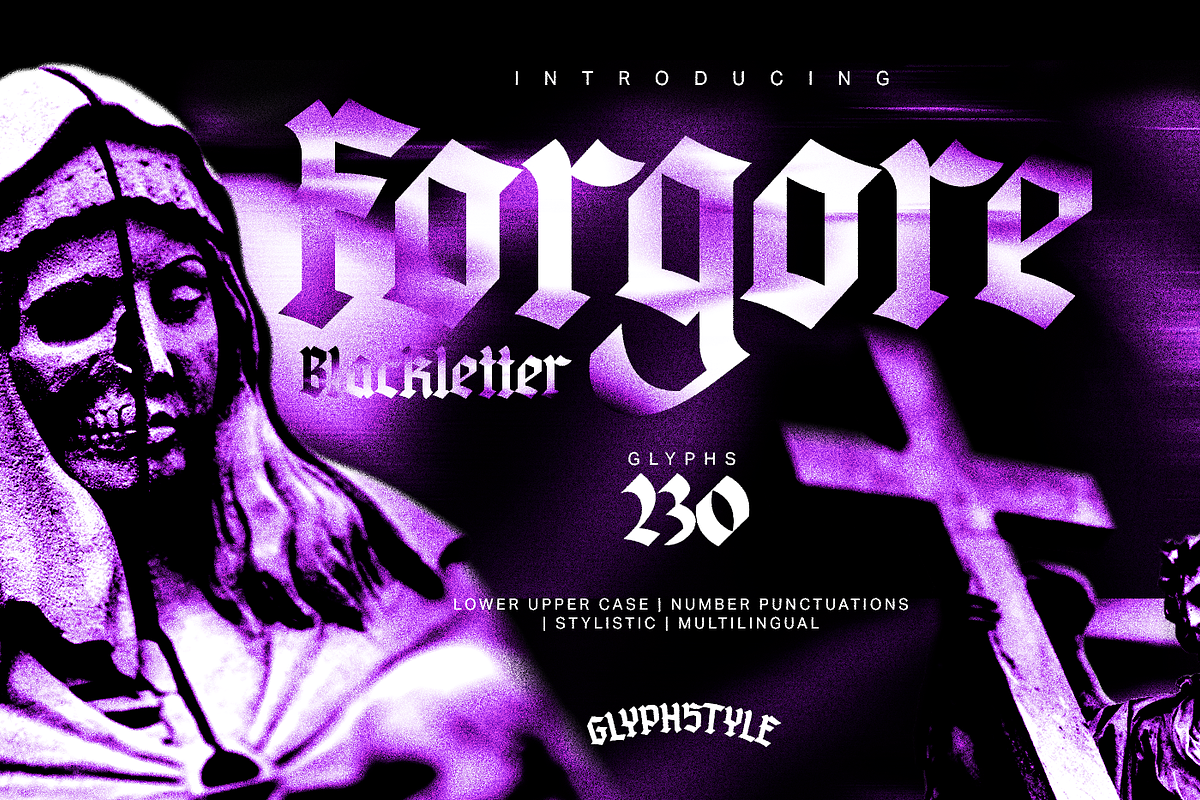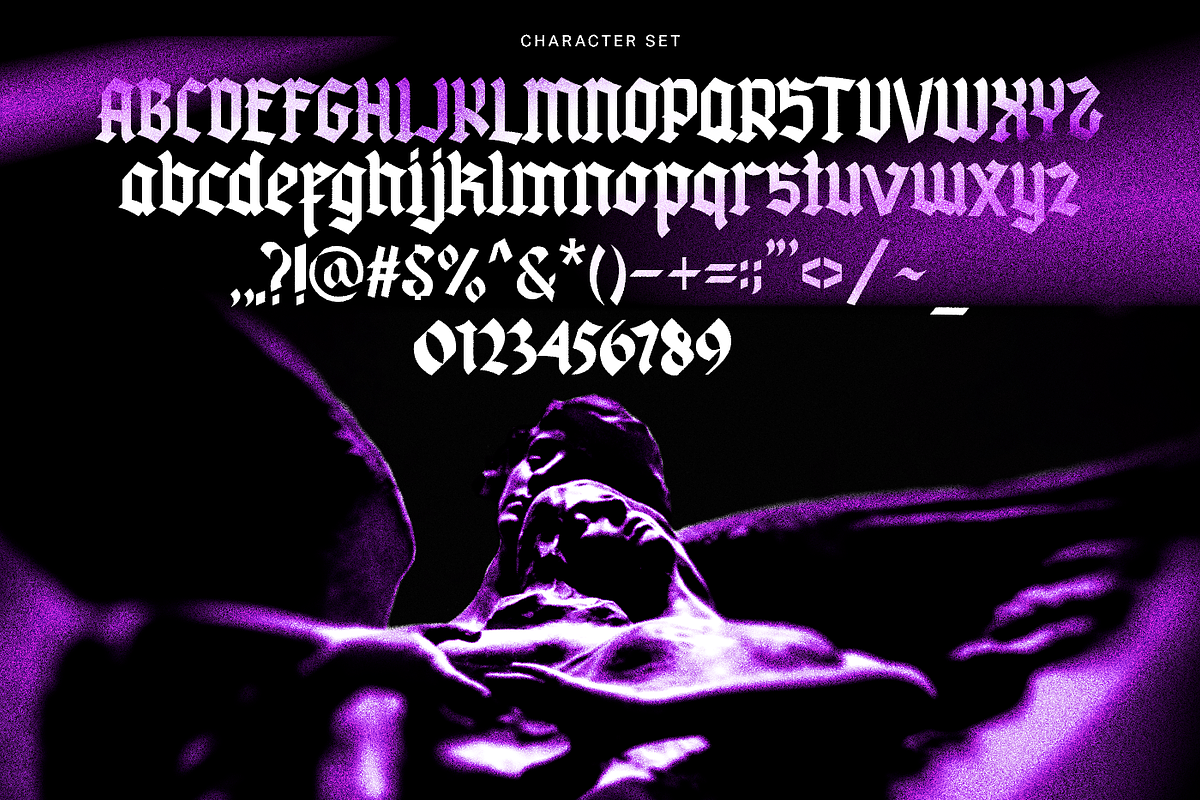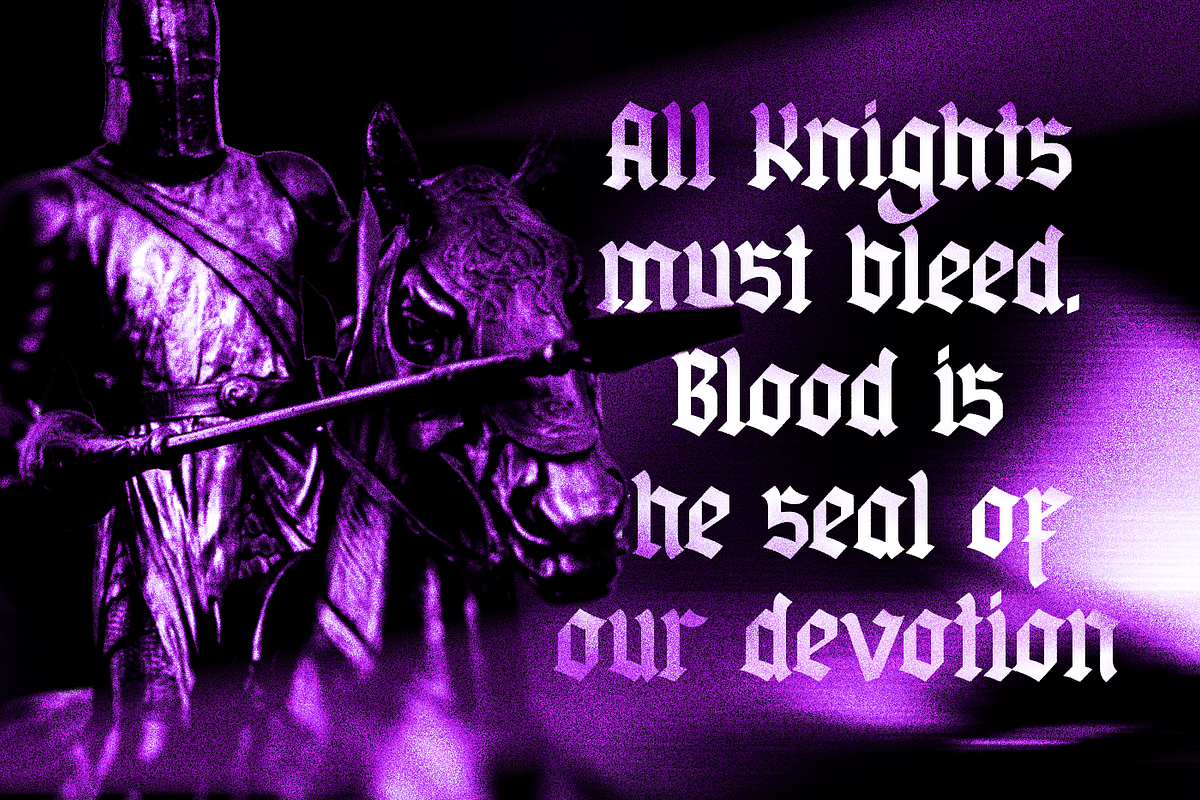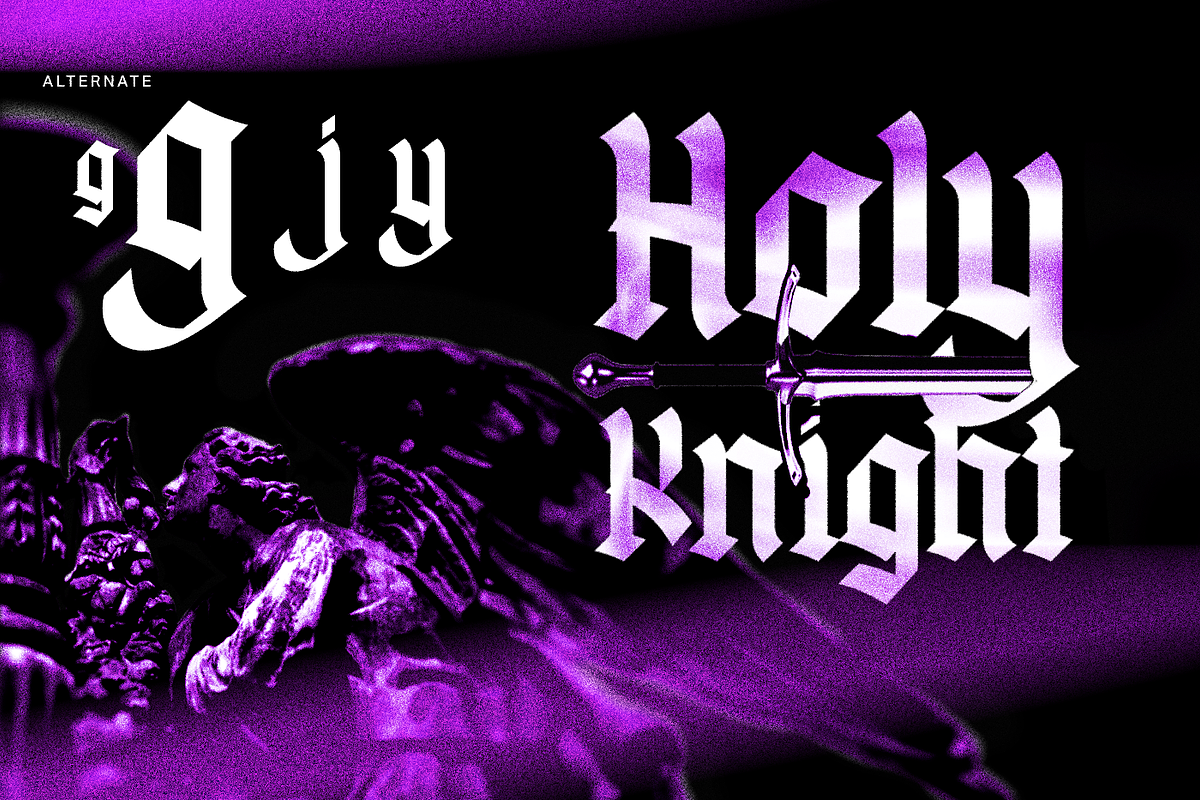
Forgore Blackletter
Forgore is Blackletter typeface embodies a dark, medieval, and sacred atmosphere, inspired by classic Gothic manuscripts and old religious typography. Featuring sharp angles, bold strokes, and dramatic contrast, this font conveys a sense of power, devotion, mystery, and authority.
Font feature
Uppercase, Lowercase, Numerals & Punctuations, Multilanguage